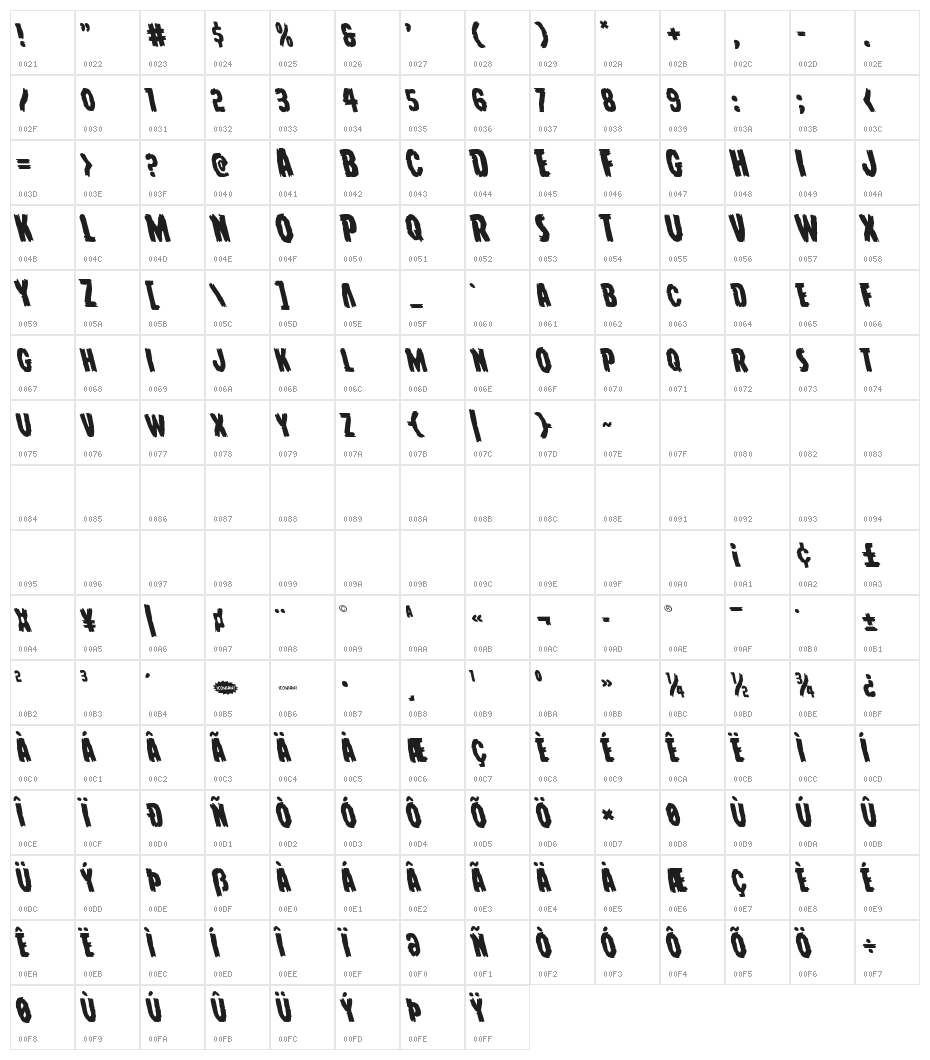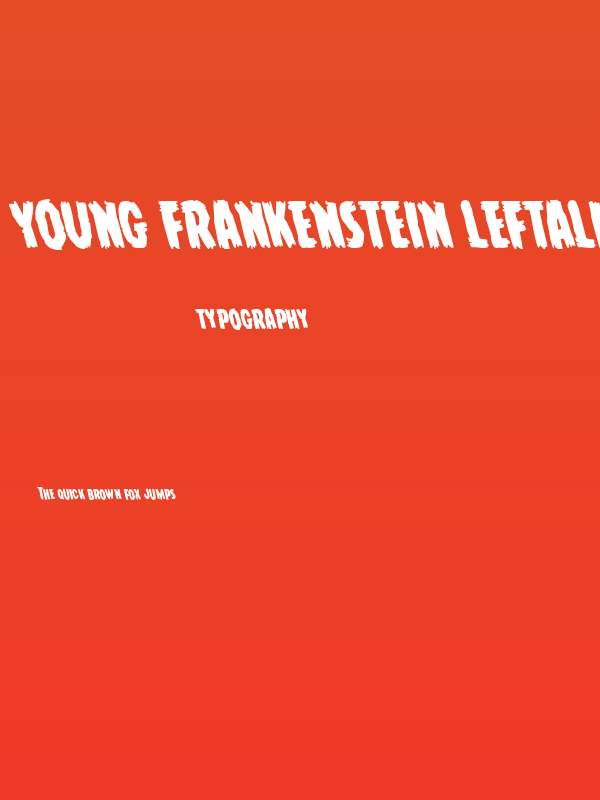
Young Frankenstein Leftalic Font
Young Frankenstein Leftalic Description
This font exhibits a bold and dramatic style, characterized by its jagged, uneven edges that give it a distressed, hand-drawn appearance. The letters are heavily weighted and appear to lean slightly to the left, adding a dynamic and energetic feel. The uppercase and lowercase letters maintain a consistent style, with exaggerated serifs and irregular strokes that create a sense of movement and intensity. The numbers and special characters follow the same aesthetic, ensuring a cohesive look across all text elements. This font's unique and eye-catching design makes it ideal for projects that require a bold statement or a touch of horror and suspense.
| Proposed Projects | Ideal for horror-themed posters, Halloween invitations, movie titles, and edgy graphic designs. |